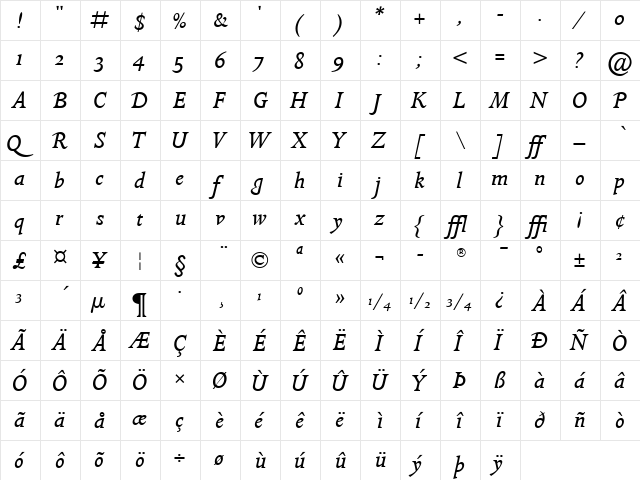
Golden Cockerel ITC Italic
Italic · International Typeface Corporation  ·
Foundry International Typeface Corporation
Design Context for Golden Cockerel ITC Typeface
Golden Cockerel ITC offers clean, dependable letterforms without strong stylistic allegiance, making it a practical choice for designers who need flexibility. The slanted form adds forward momentum and visual energy.
Pro Tip: Use Golden Cockerel ITC for emphasis, pull quotes, and subheadings where its slanted energy can add rhythm to the layout.